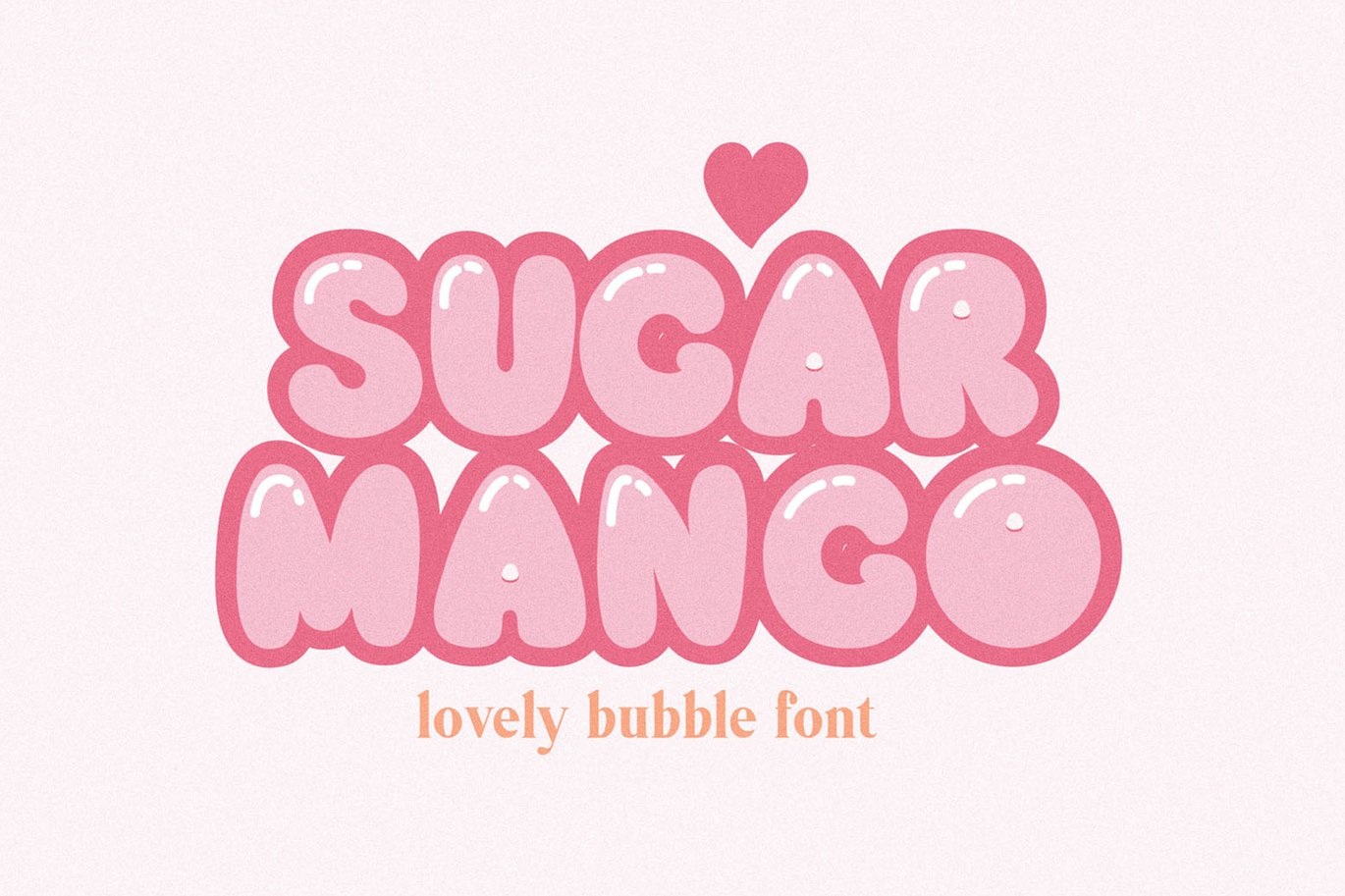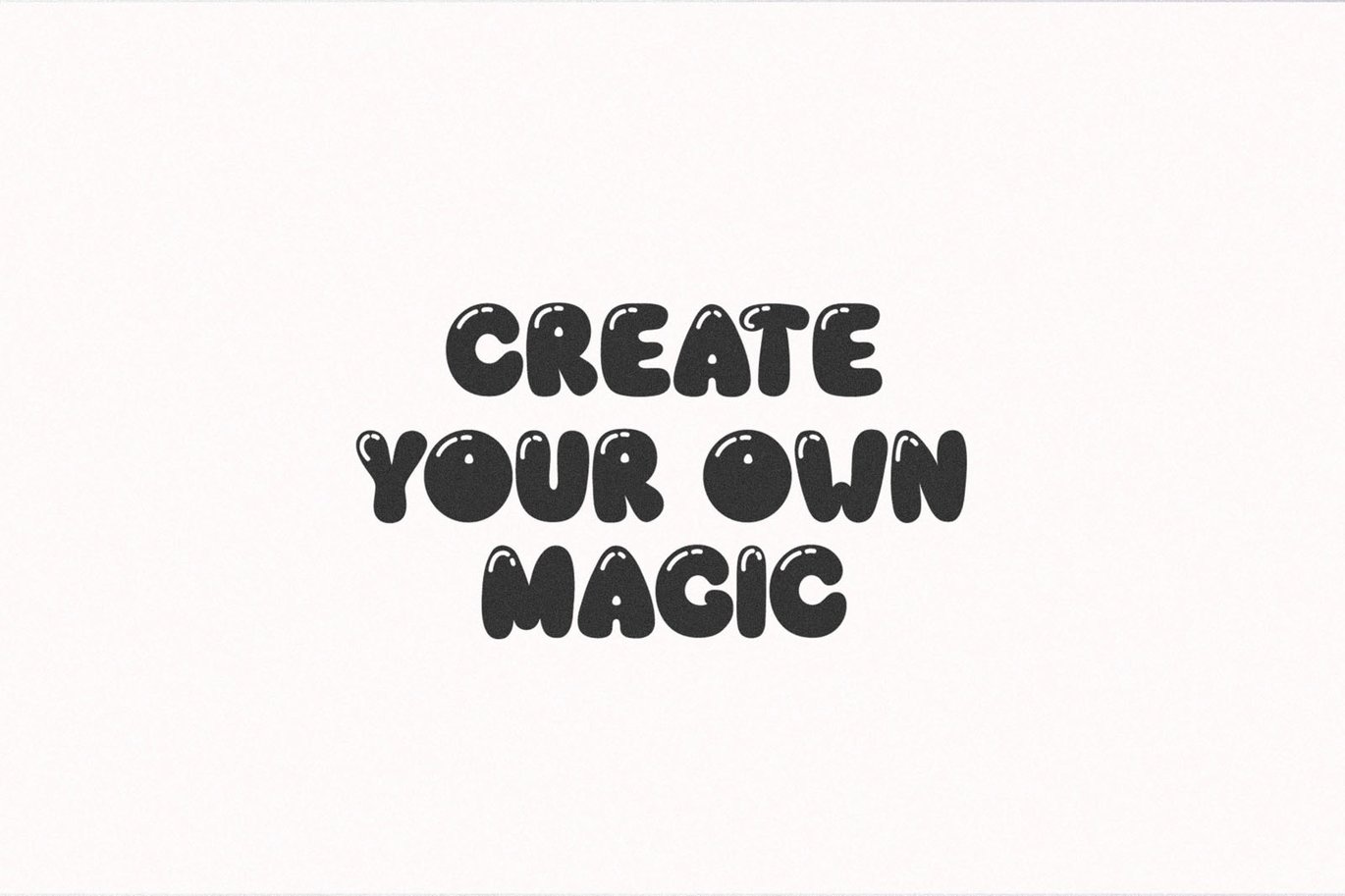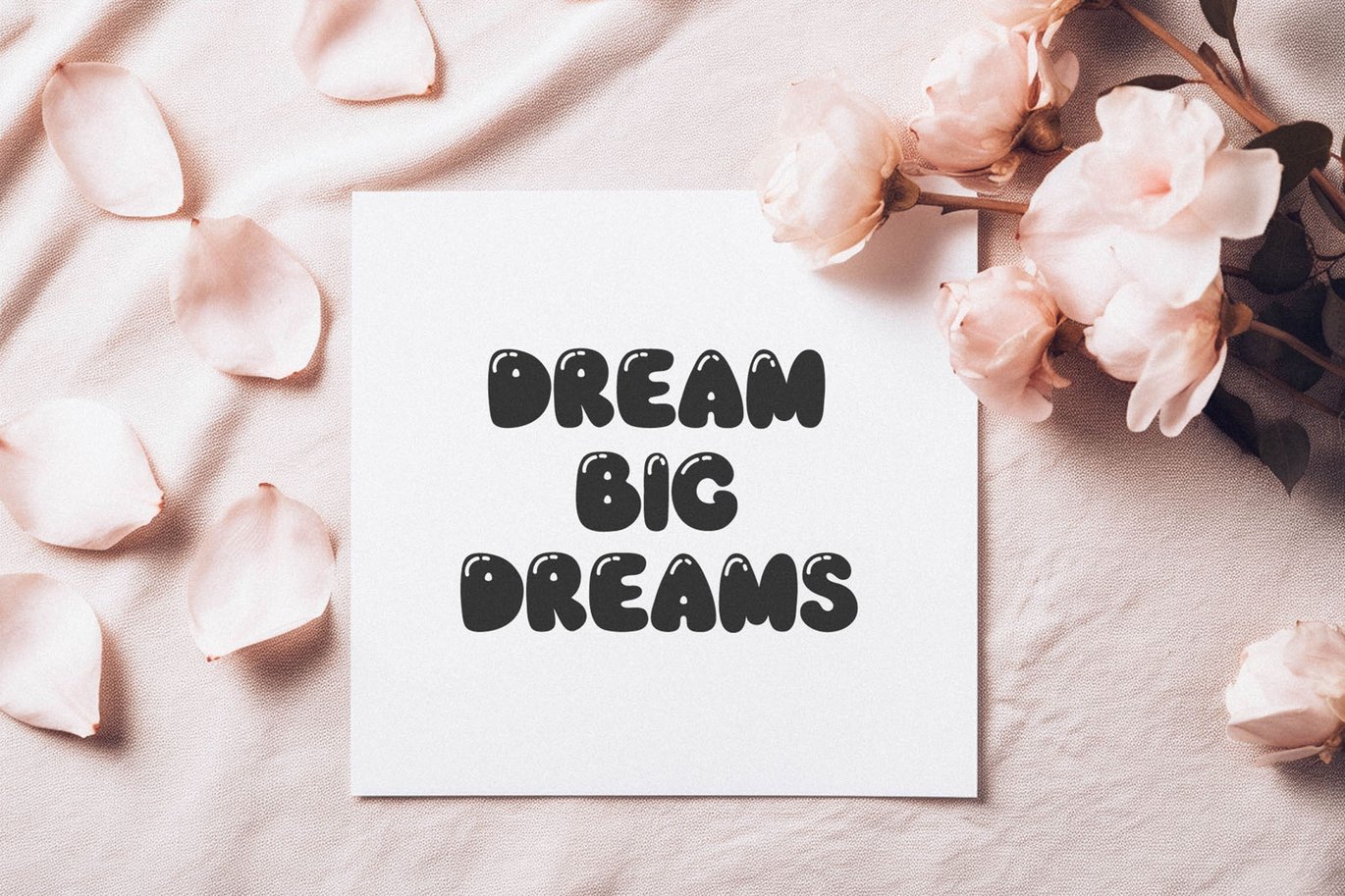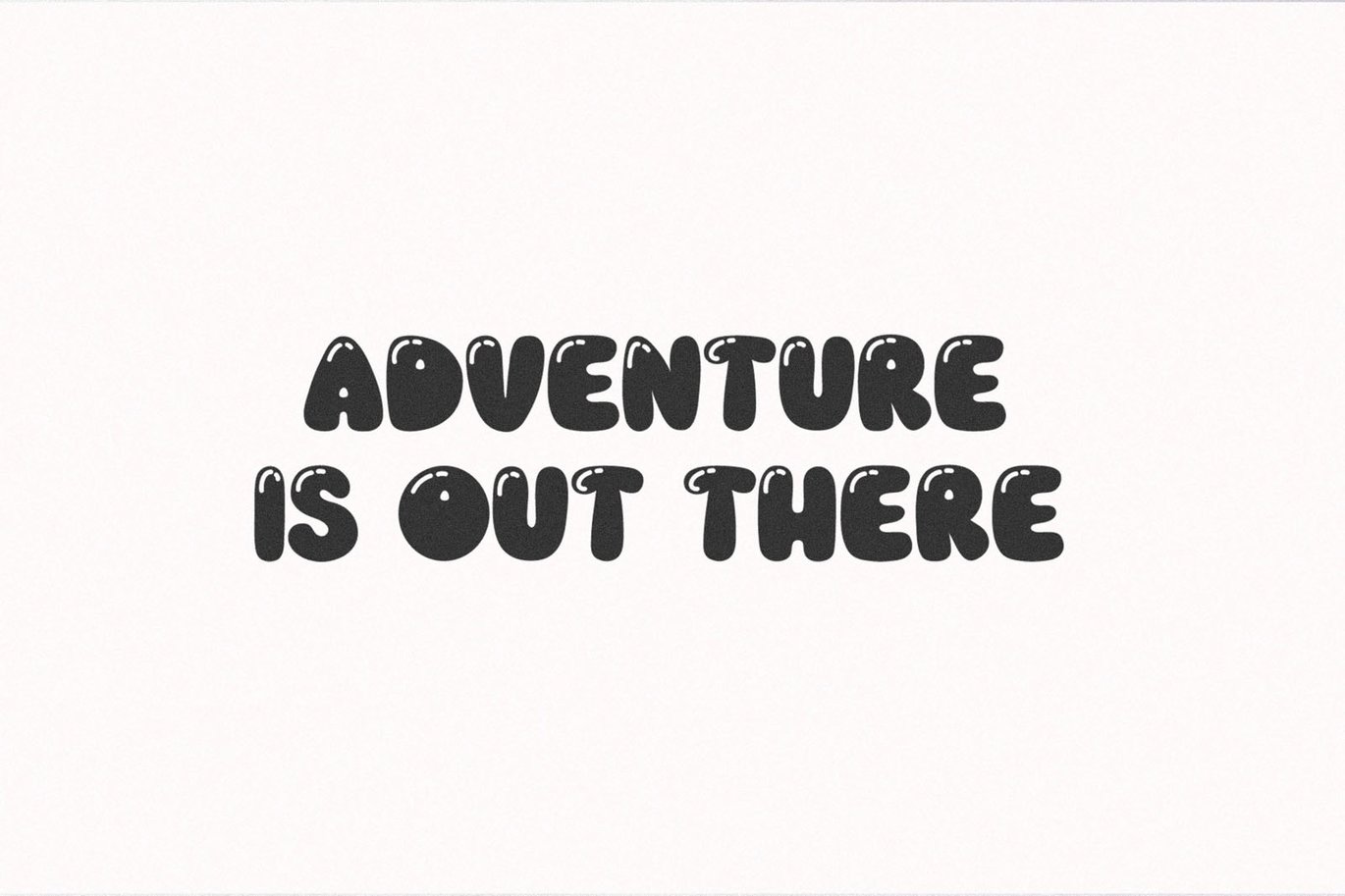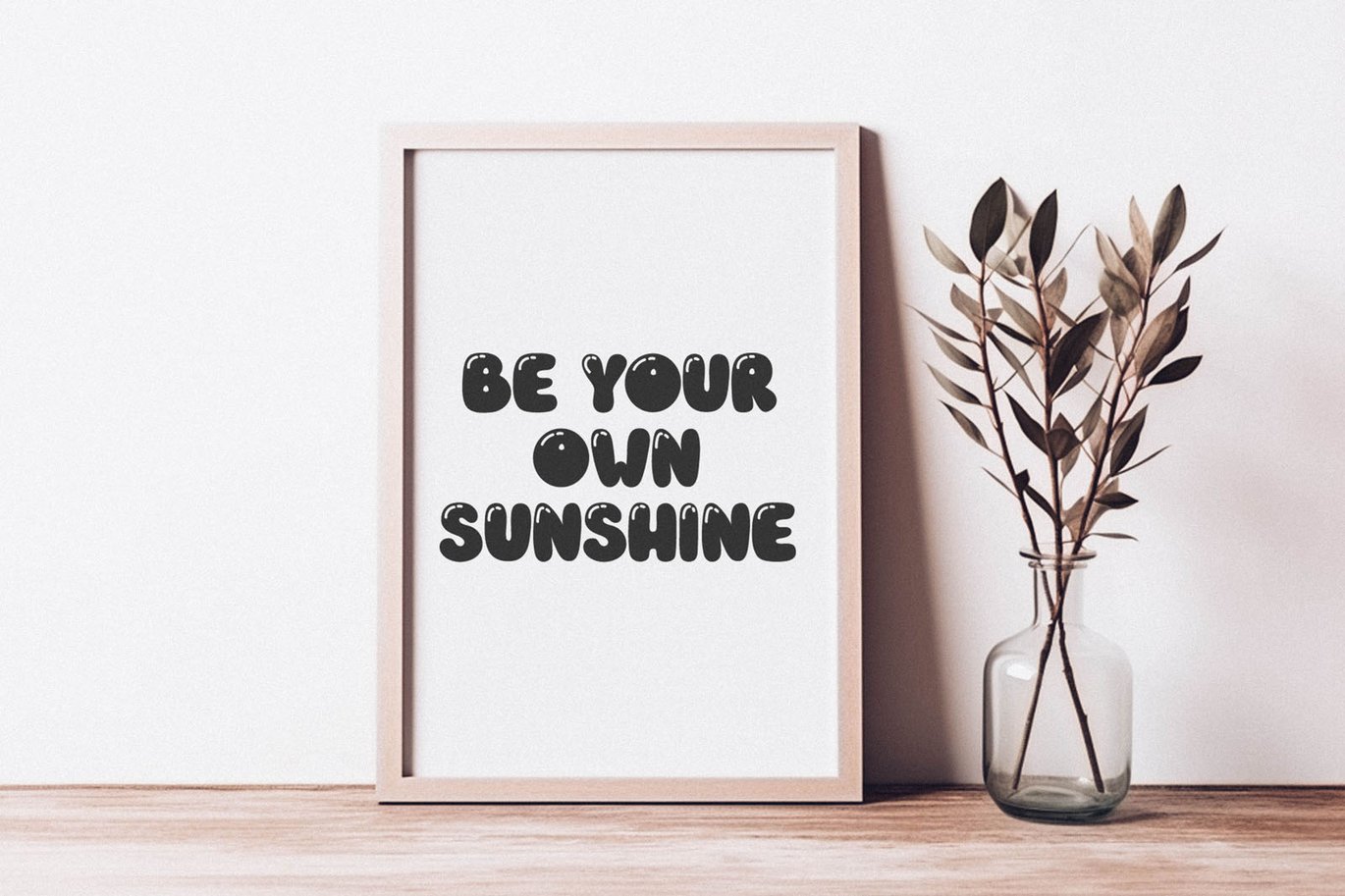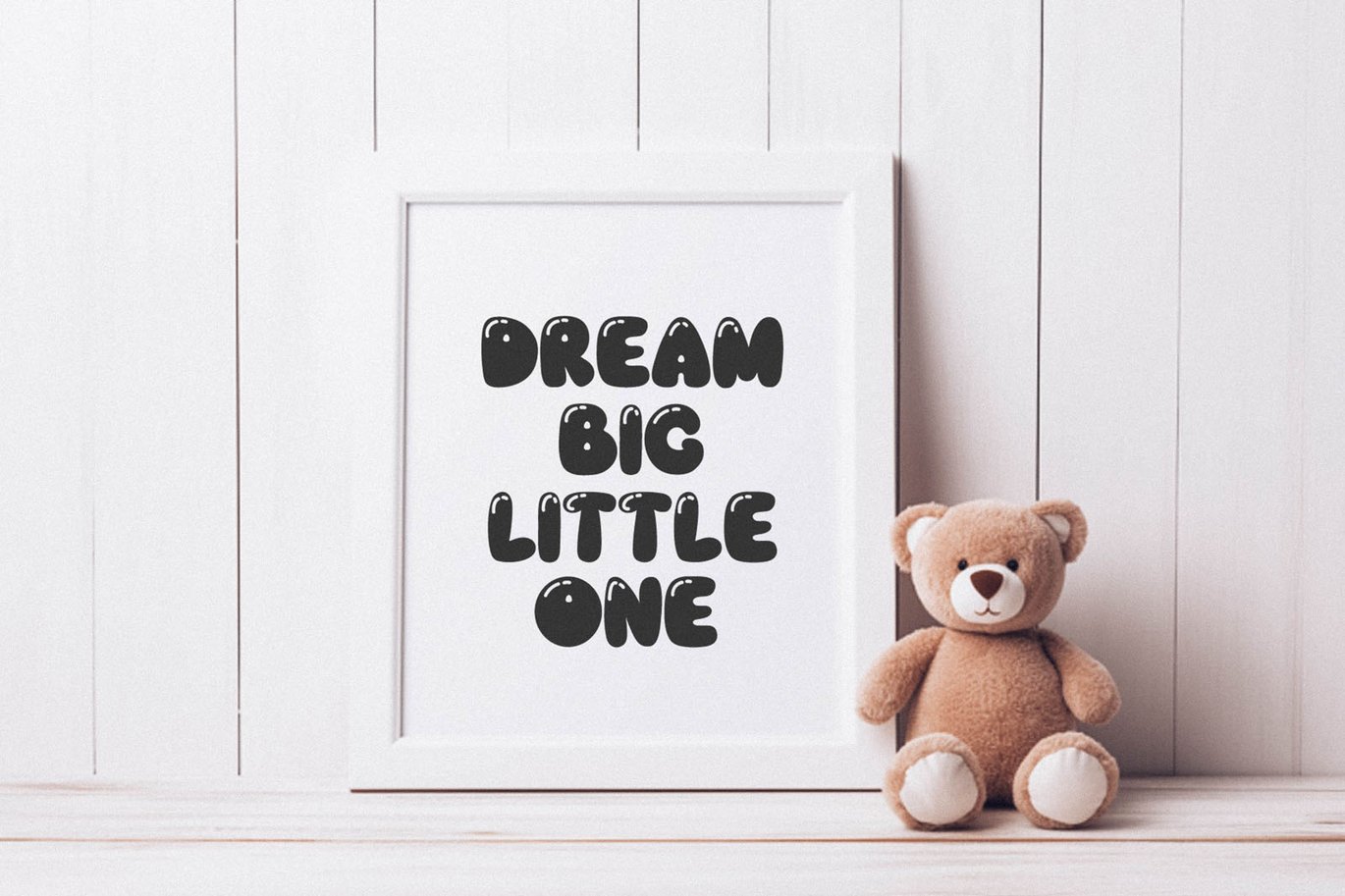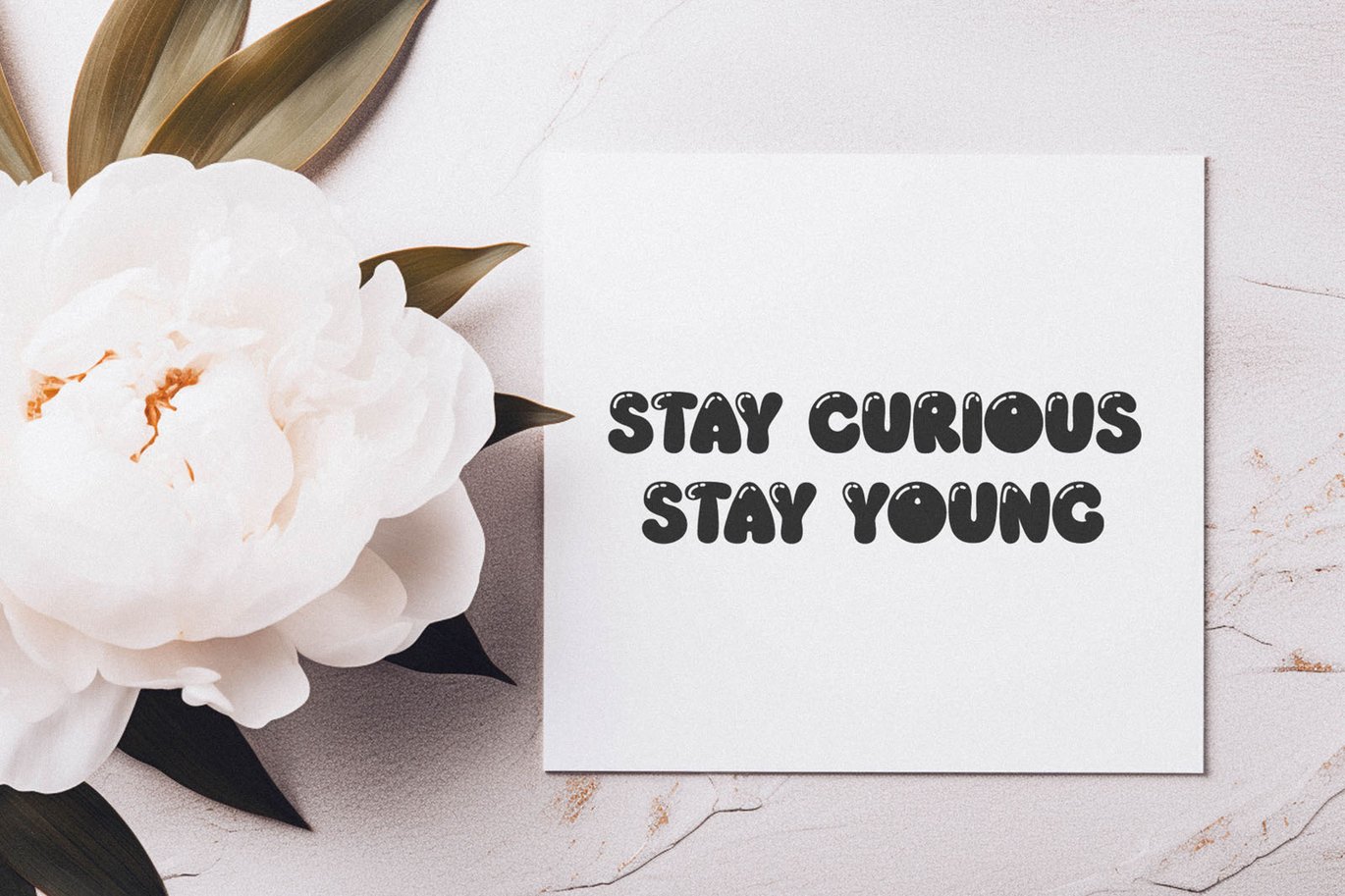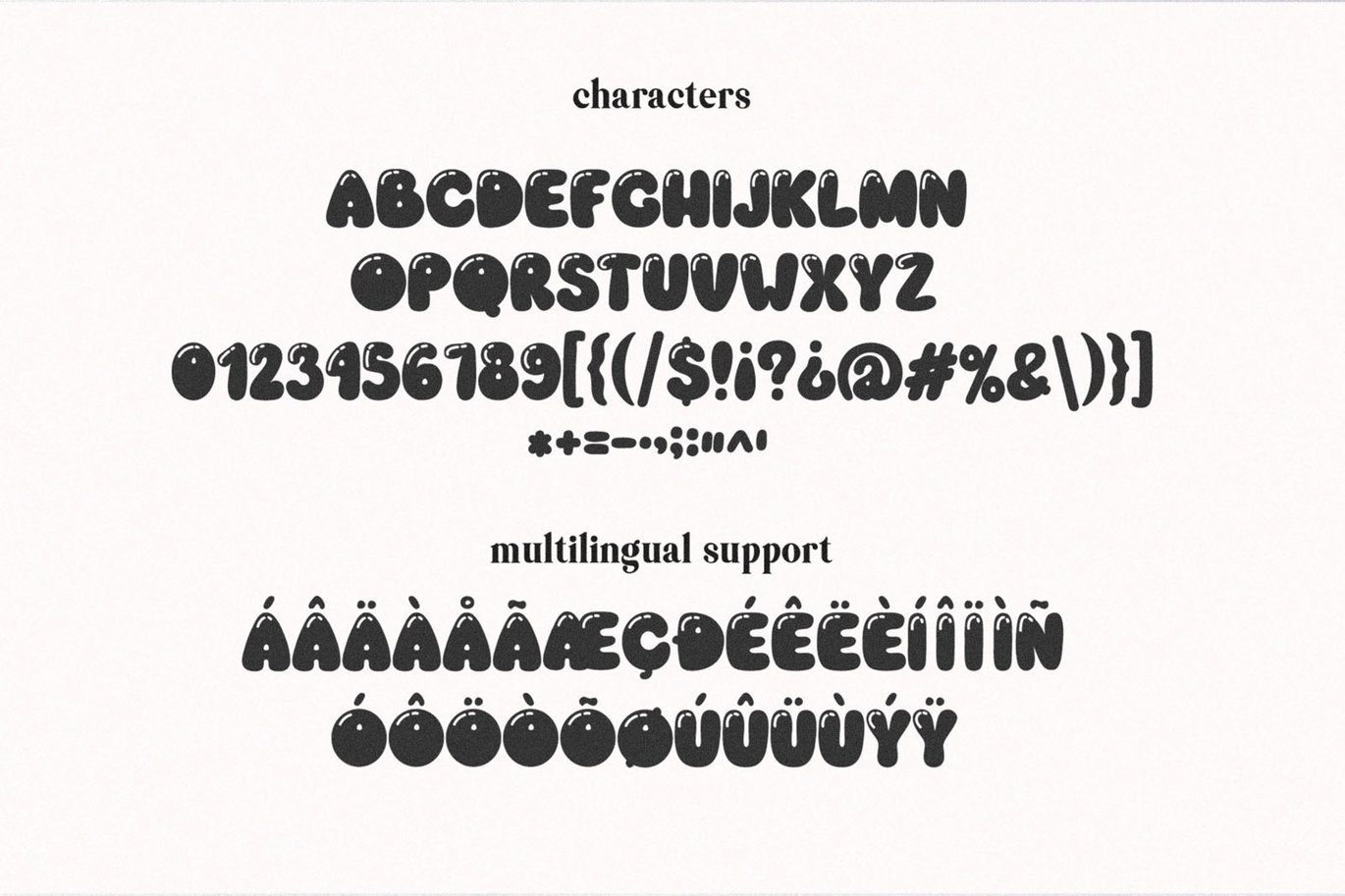
Sugar Mango Bubble Font
Sugar Mango a bubble handwritten font. Perfect to create stickers, quotes, prints, cricut projects, sublimation designs and svg files.